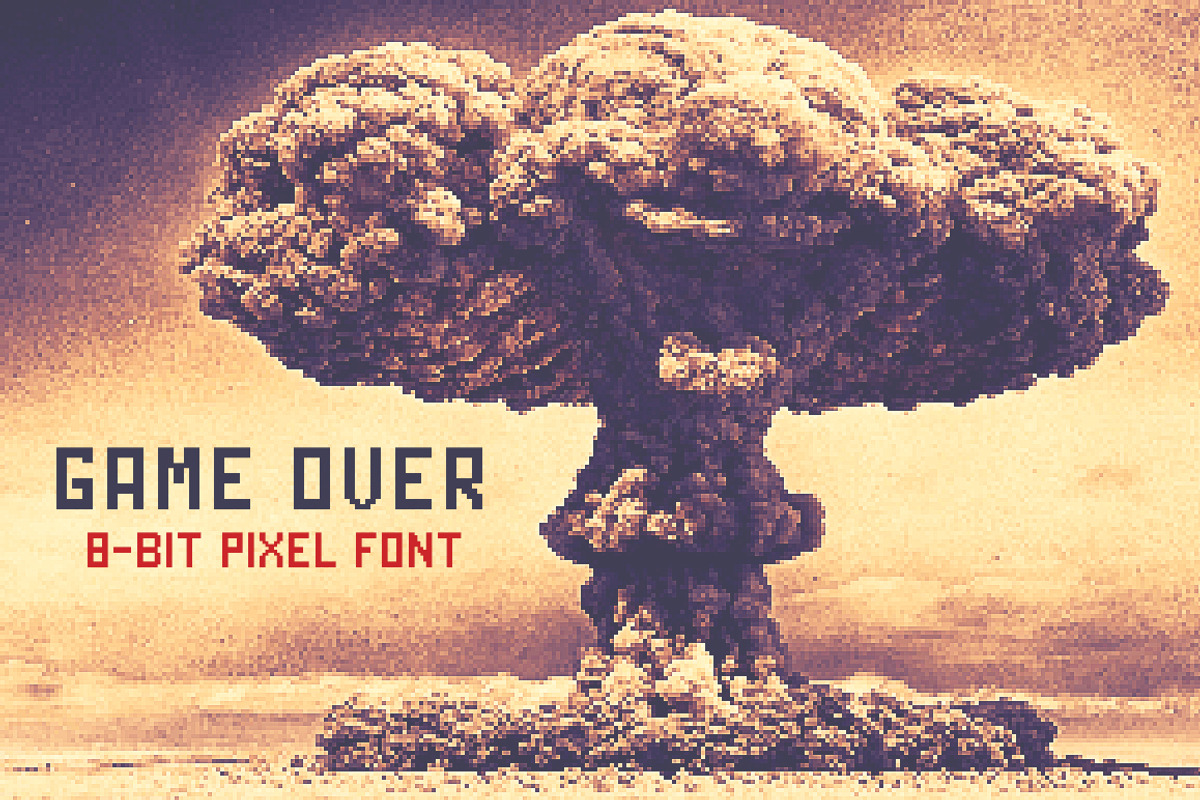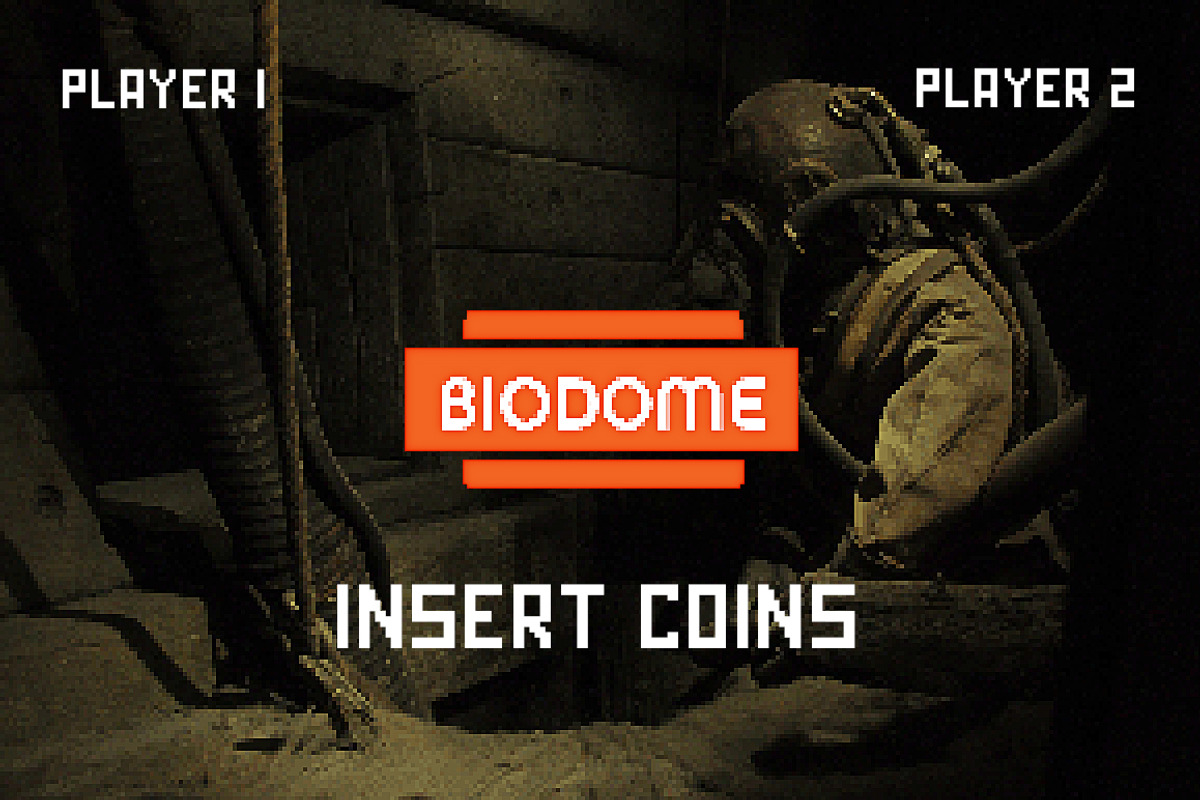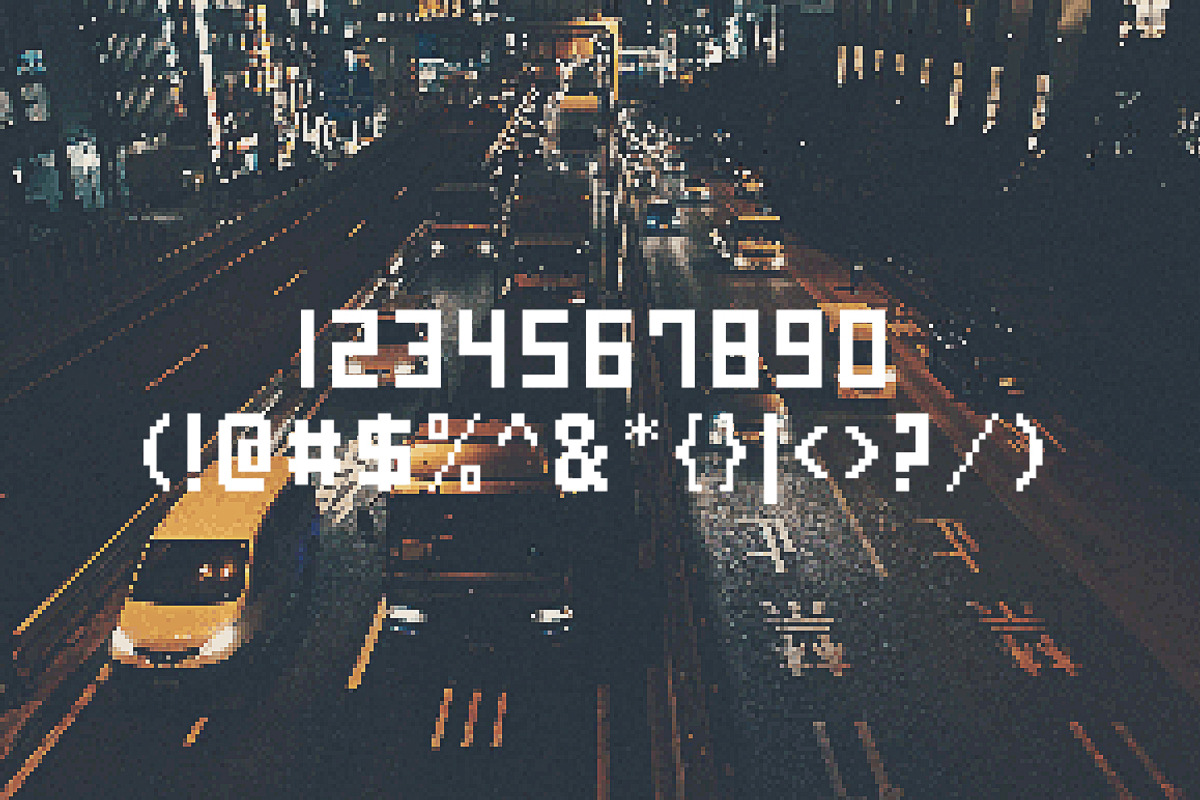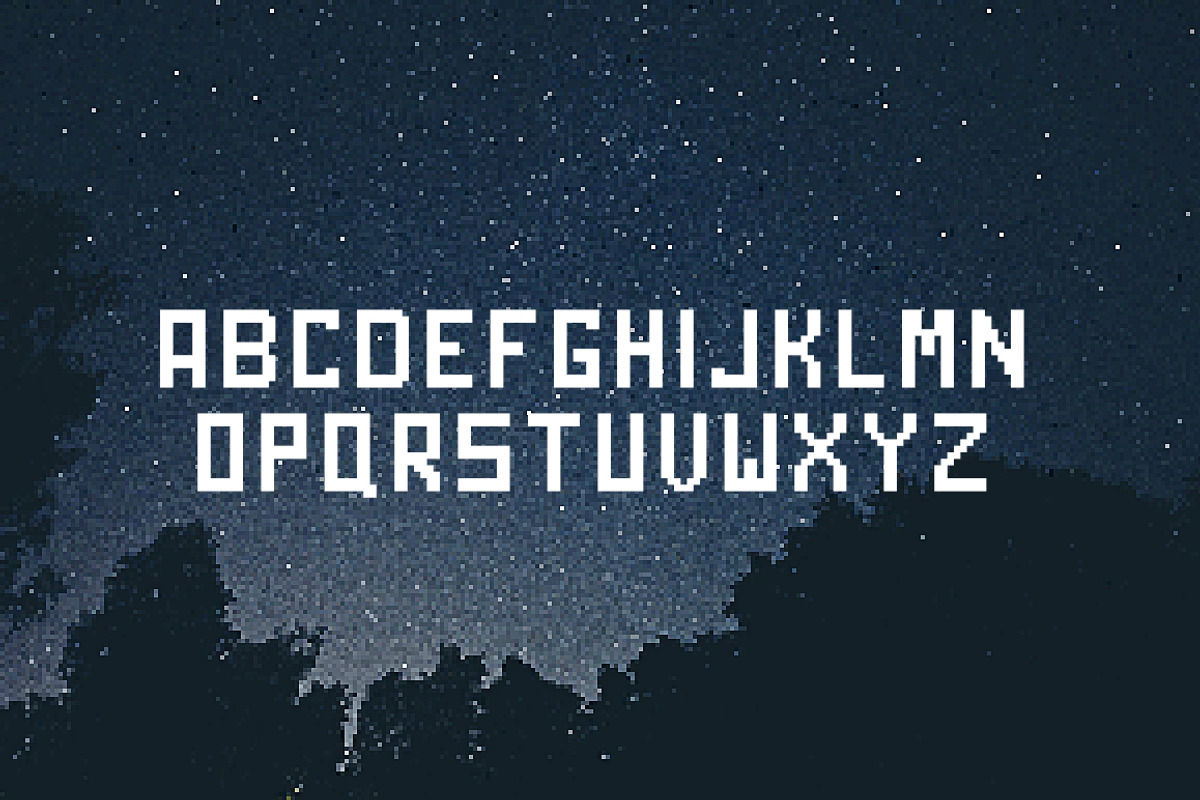
Game Over - 8Bit Pixel Font
Game Over - 8Bit Pixel Font by HipFonts is a font selected for branding, posters, packaging, typography.
Game Over - 8Bit Pixel Font by HipFonts fits naturally into Branding, posters, packaging, typography.